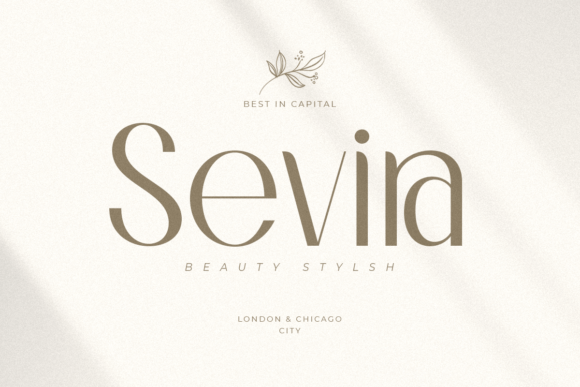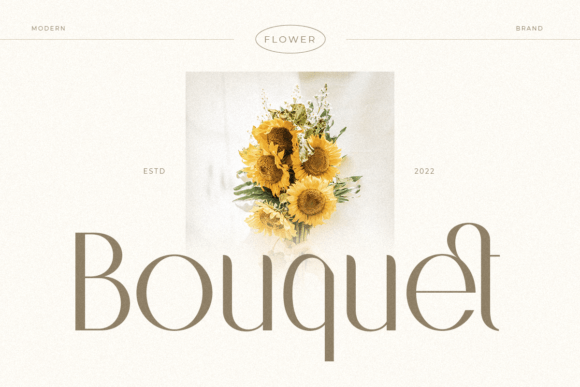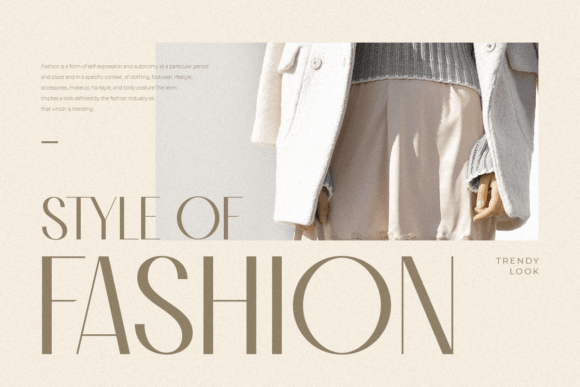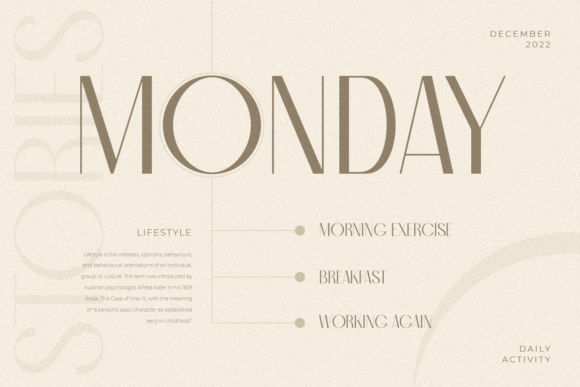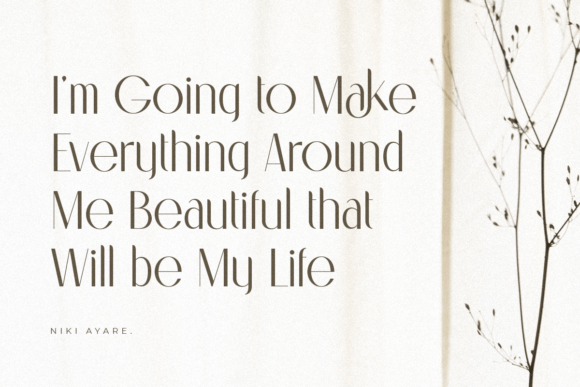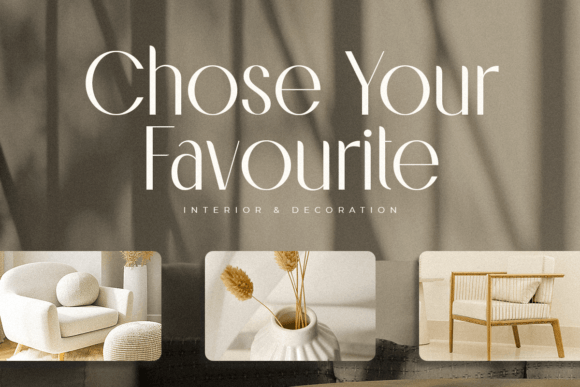
Elevate Your Designs with the Sophistication of Bridge Font
Have you ever stared at a blank page, desperately searching for the perfect font to bring your design to life? That’s exactly what happened to me last week, and it wasn’t until I stumbled upon Bridge Font that the puzzle pieces fell into place. This stylish sans-serif font is more than just a pretty face – it’s a masterclass in modern elegance and clarity.
Designed to elevate your projects with refined simplicity, Bridge Font is perfect for professional branding, sleek editorial layouts, and contemporary web design. With its clean lines and balanced proportions, it’s a valuable addition to any designer’s toolkit. Whether you’re working on a high-stakes marketing campaign or a personal passion project, Bridge Font is the perfect choice to make your designs stand out.
Bridge Font Key Features
- Unique Character Set: Features a unique character set with over 2000 glyphs, including a wide range of international characters and symbols.
- Multi-Lingual Support: Designed to support multiple languages, including Latin, Cyrillic, Greek, and many more, making it a versatile font for global use.
- Customizable: Allows for customization of font weights, styles, and sizes, providing flexibility for designers and typographers.
Designer Review: Bridge Font
Overall, I’m impressed with the Bridge Font – it’s a versatile and modern sans-serif font that can easily adapt to various design projects. ✨
Here are some of its strengths:
- Highly legible, even at smaller font sizes
- Well-suited for both digital and print media
- Features a clean and minimalist aesthetic
- Supports multiple languages, including Latin and Cyrillic scripts
However, I do have some concerns:
- ⚠️ It may not be the best choice for projects requiring a strong, bold font face – it can sometimes appear too light or thin
- ⚠️ Limited number of font weights and styles, which may limit its customization options
Despite these limitations, I believe the Bridge Font is a solid choice for designers seeking a clean and modern sans-serif font. Its versatility and legibility make it an excellent addition to any design project. With a bit of creative experimentation, it’s possible to work around its limitations and achieve great results.
Tips for Getting the Most Out of Bridge Font
Use Bridge Font to create visually appealing headings and titles. Experiment with different font sizes and colors to create a cohesive design. Also, use Bridge Font in combination with other design elements, such as images and graphics, to create a unique and engaging visual identity.
Bridge Font is commonly used in:
– Headings and titles
– Infographics and visualizations
– Social media graphics and ads
Alternatives to Bridge Font for Designers
Open Sans is a clean and modern sans-serif font, suitable for a wide range of applications. It’s highly legible and versatile, making it an excellent choice for body text and titles. When to use: Open Sans is ideal for web design, mobile apps, and digital products where readability is crucial.
Comparison to Bridge Font: While both fonts are sans-serif, Open Sans has a more neutral and minimalist feel compared to Bridge Font’s slightly more ornate appearance.
Lato is a sans-serif font with a modern, clean design. It’s highly versatile and suitable for both print and digital media. When to use: Lato is ideal for branding, logos, and titles where a touch of sophistication is required.
Comparison to Bridge Font: Lato has a more geometric and minimalist feel compared to Bridge Font’s slightly more organic appearance.